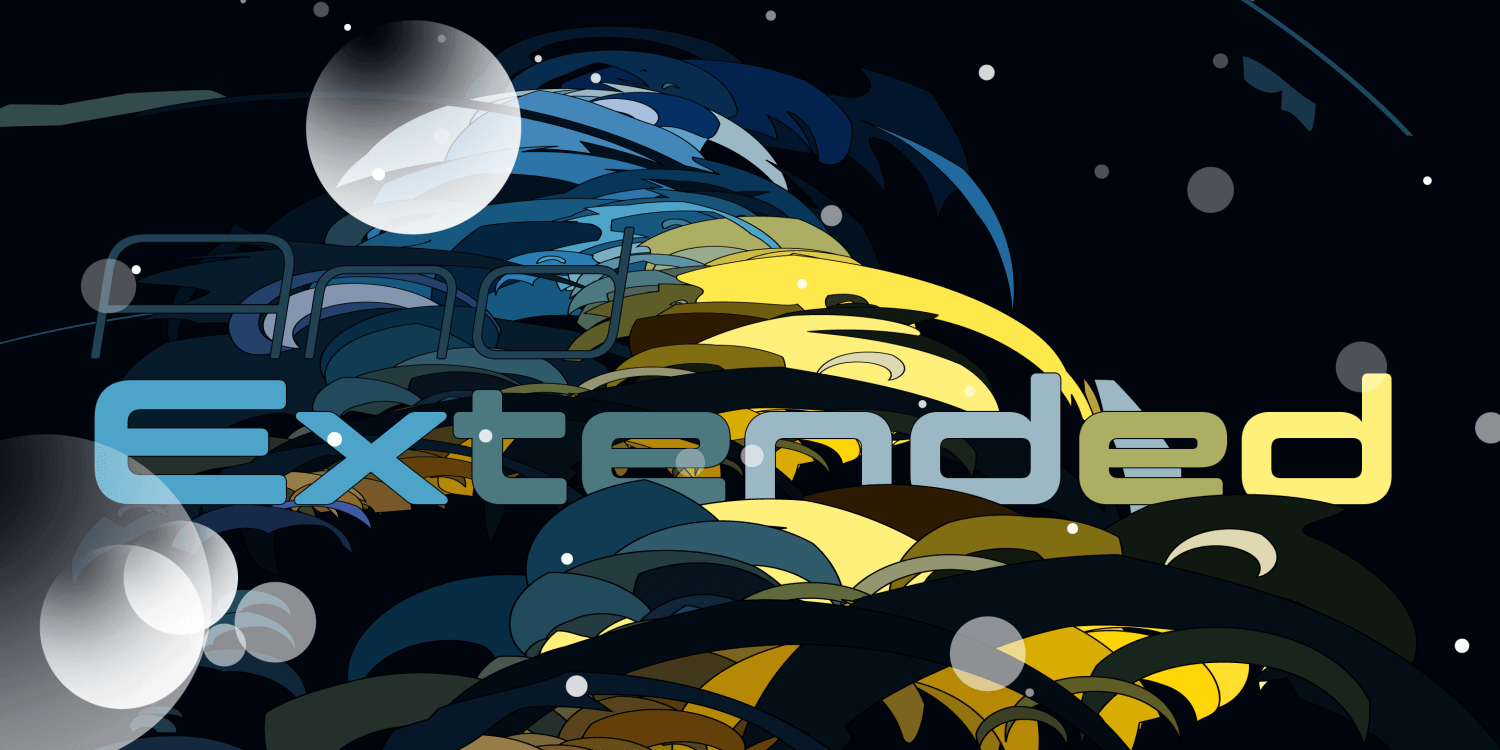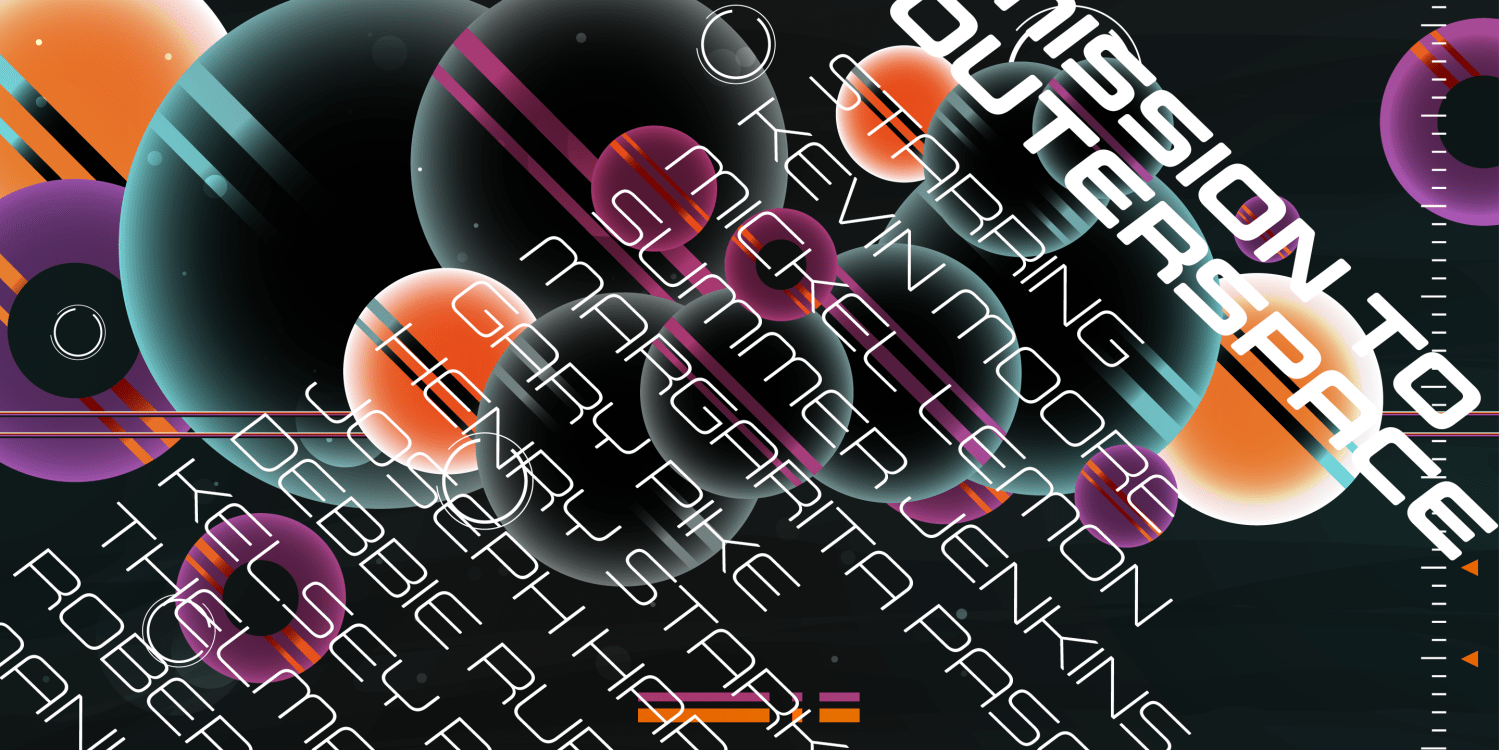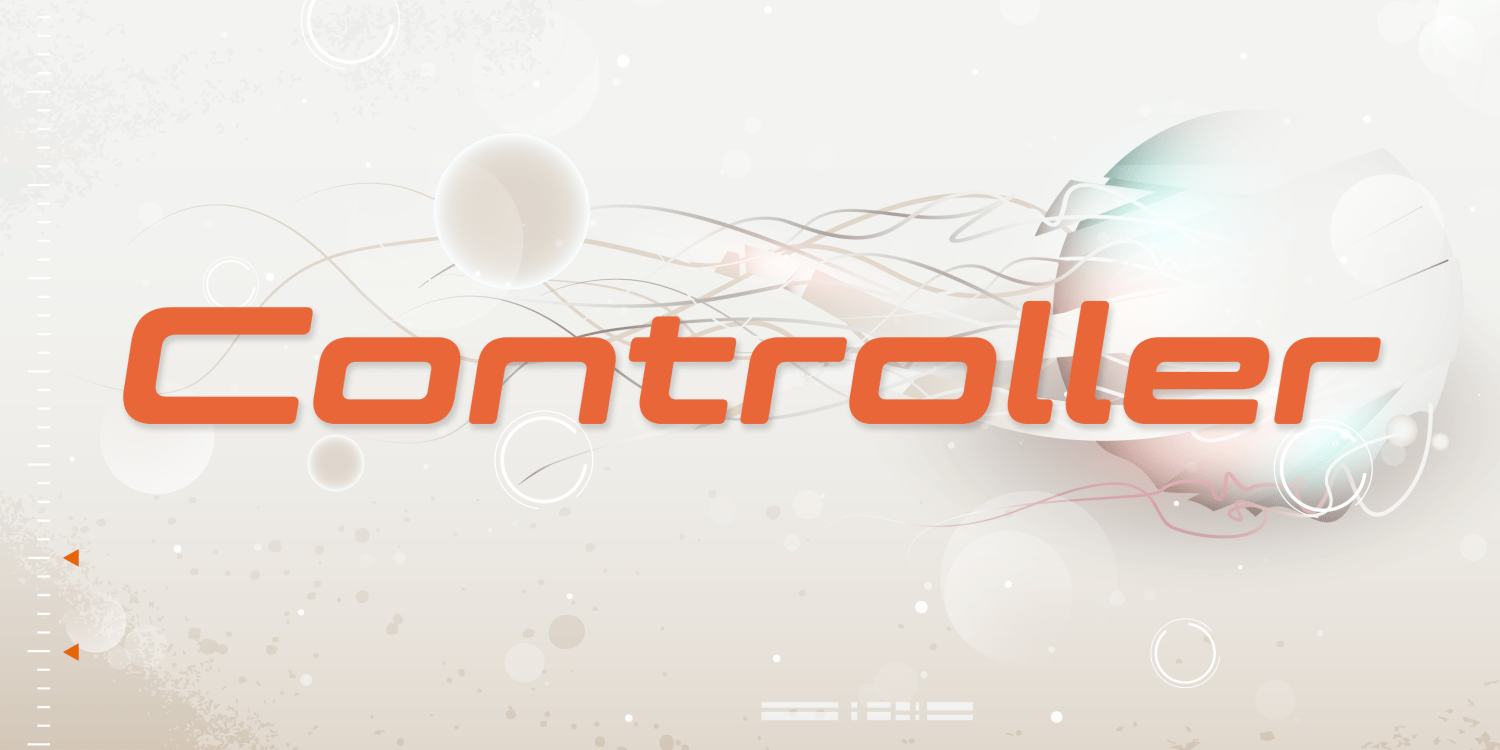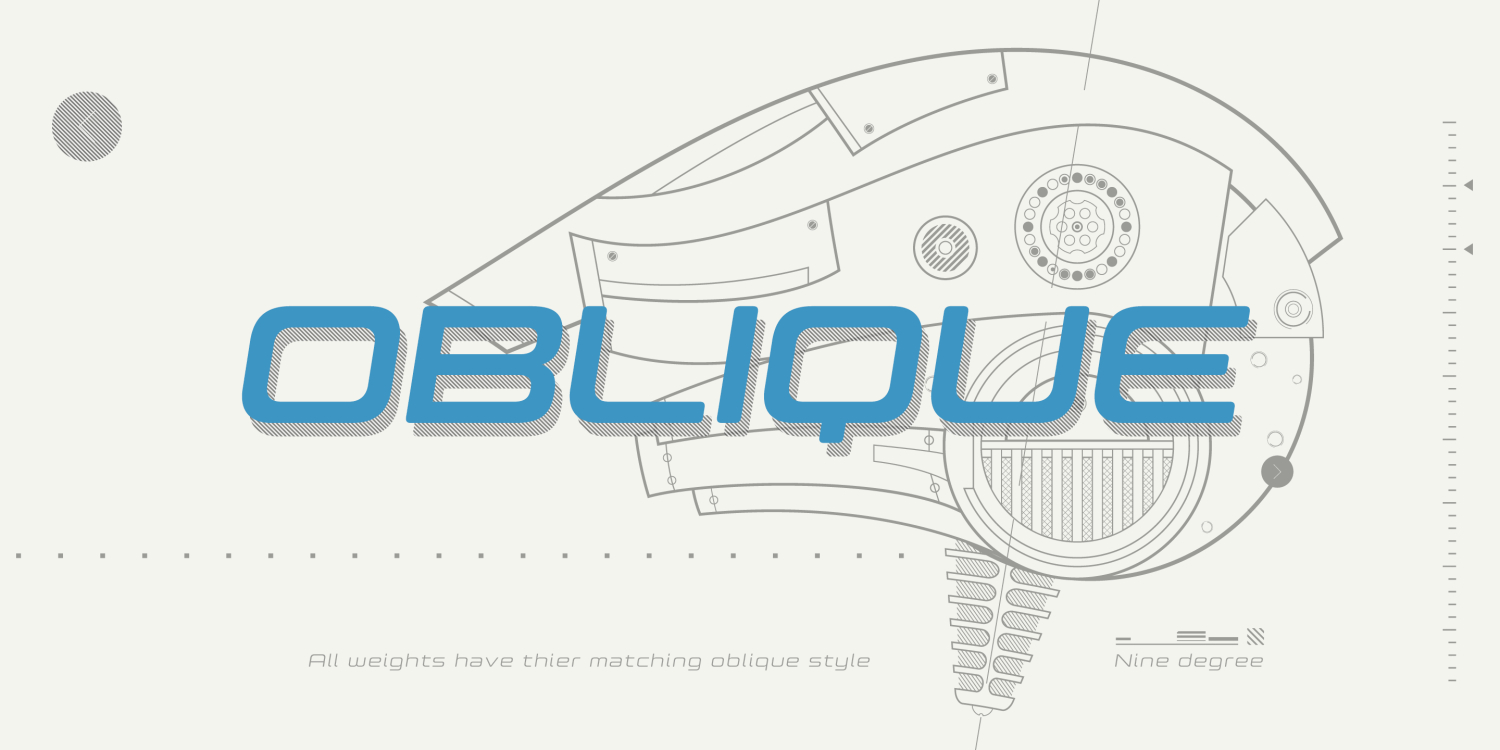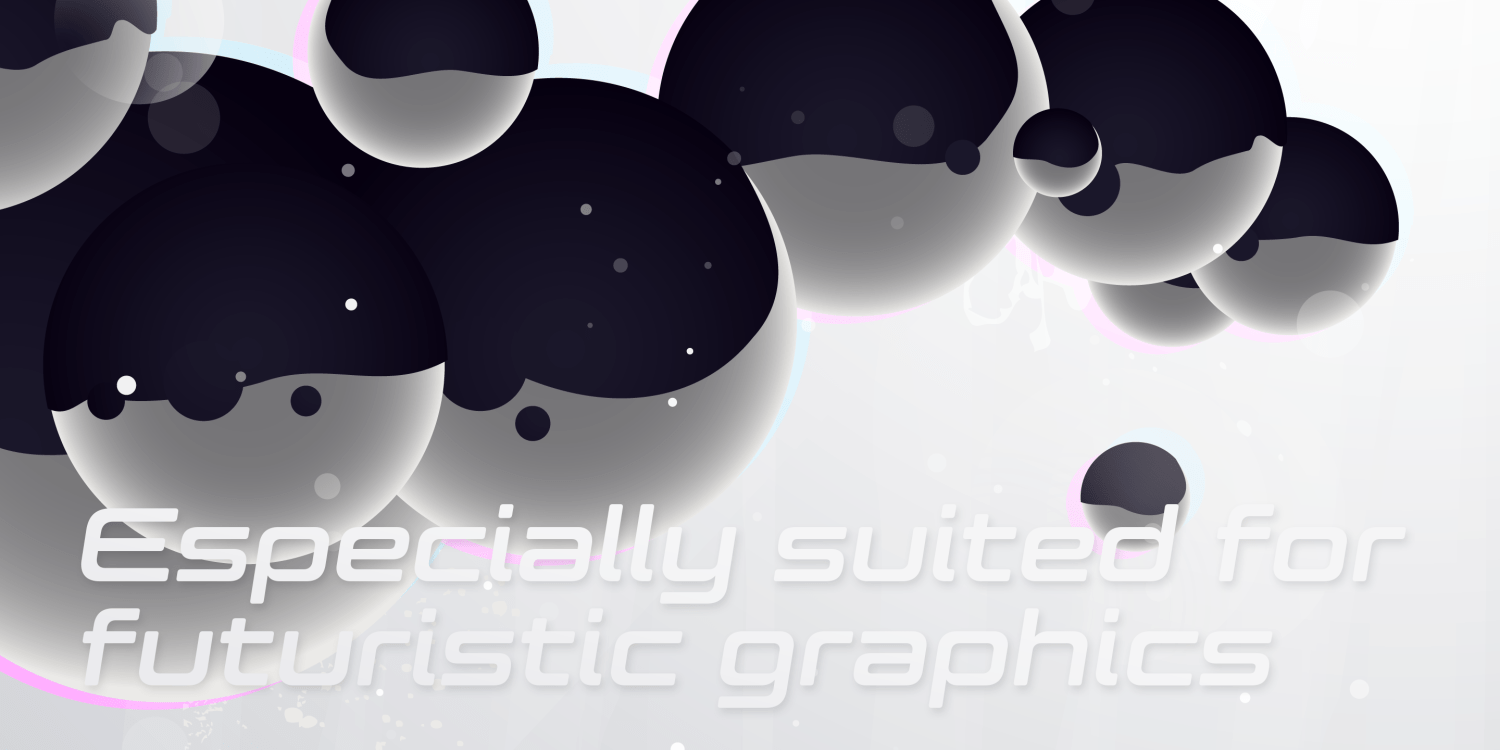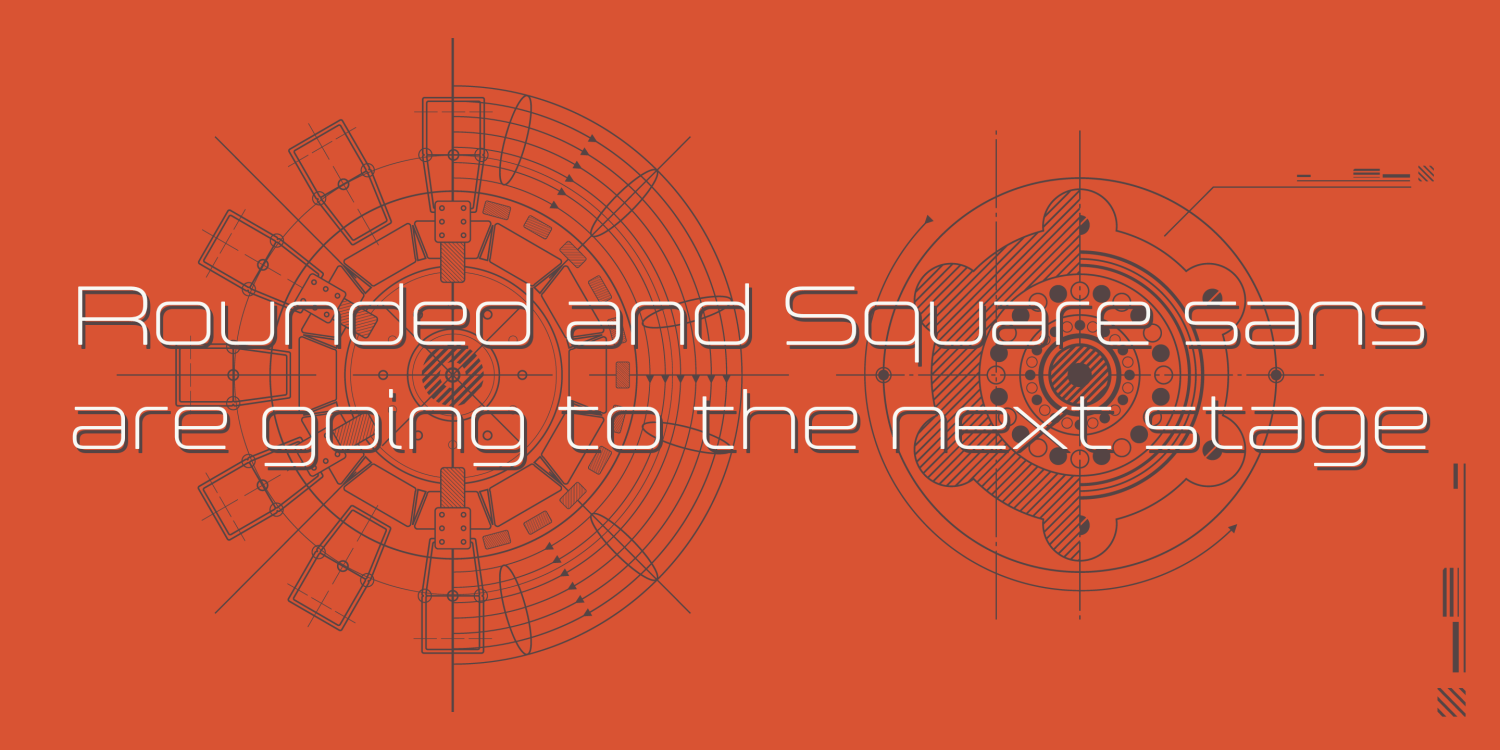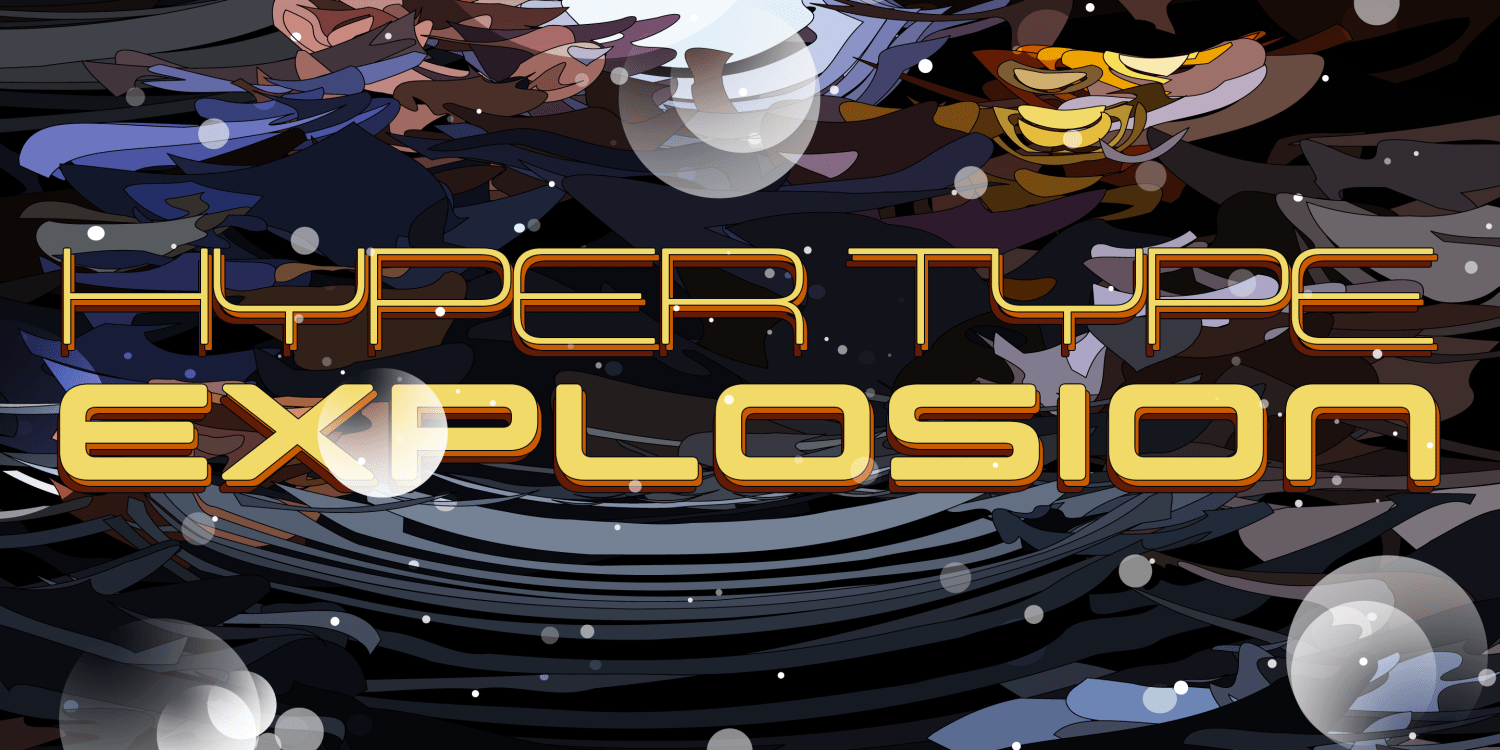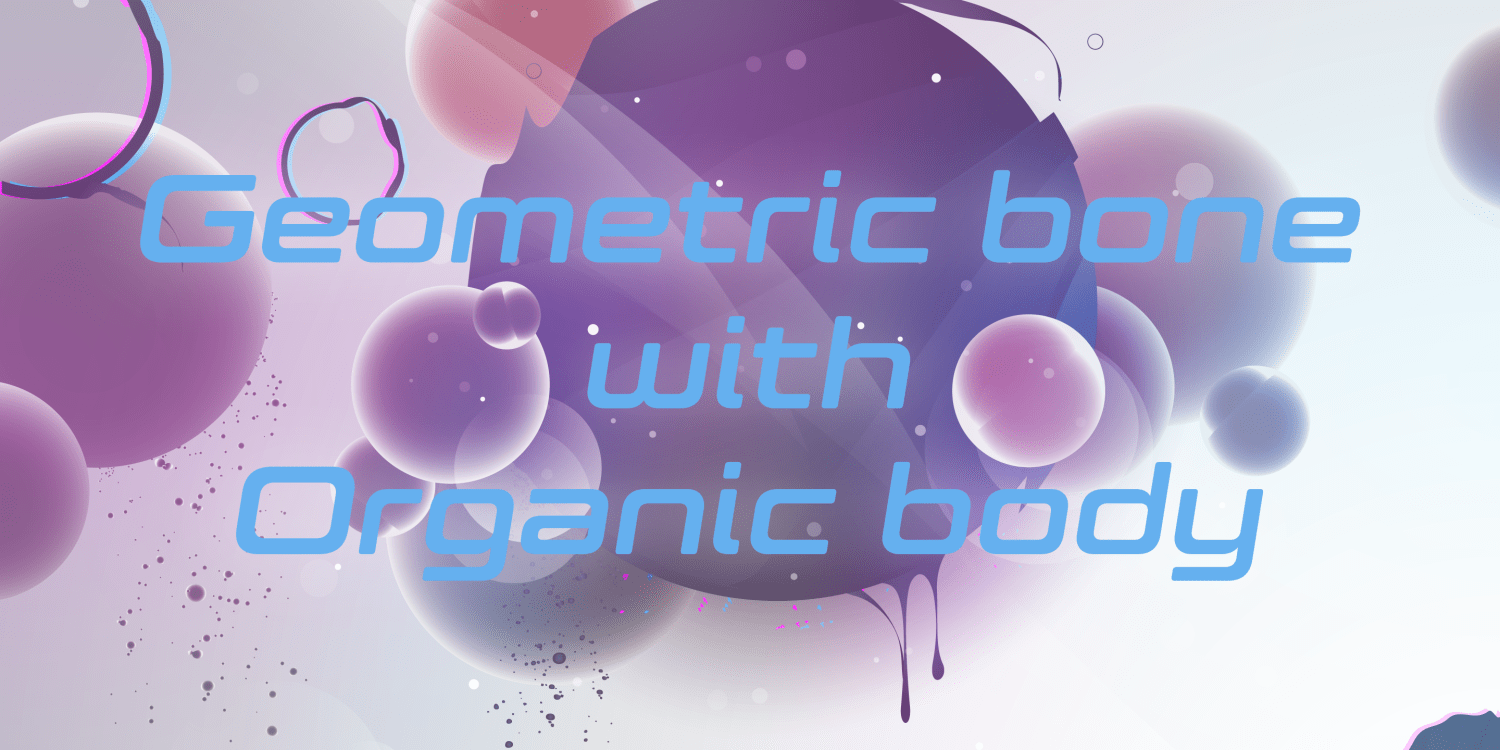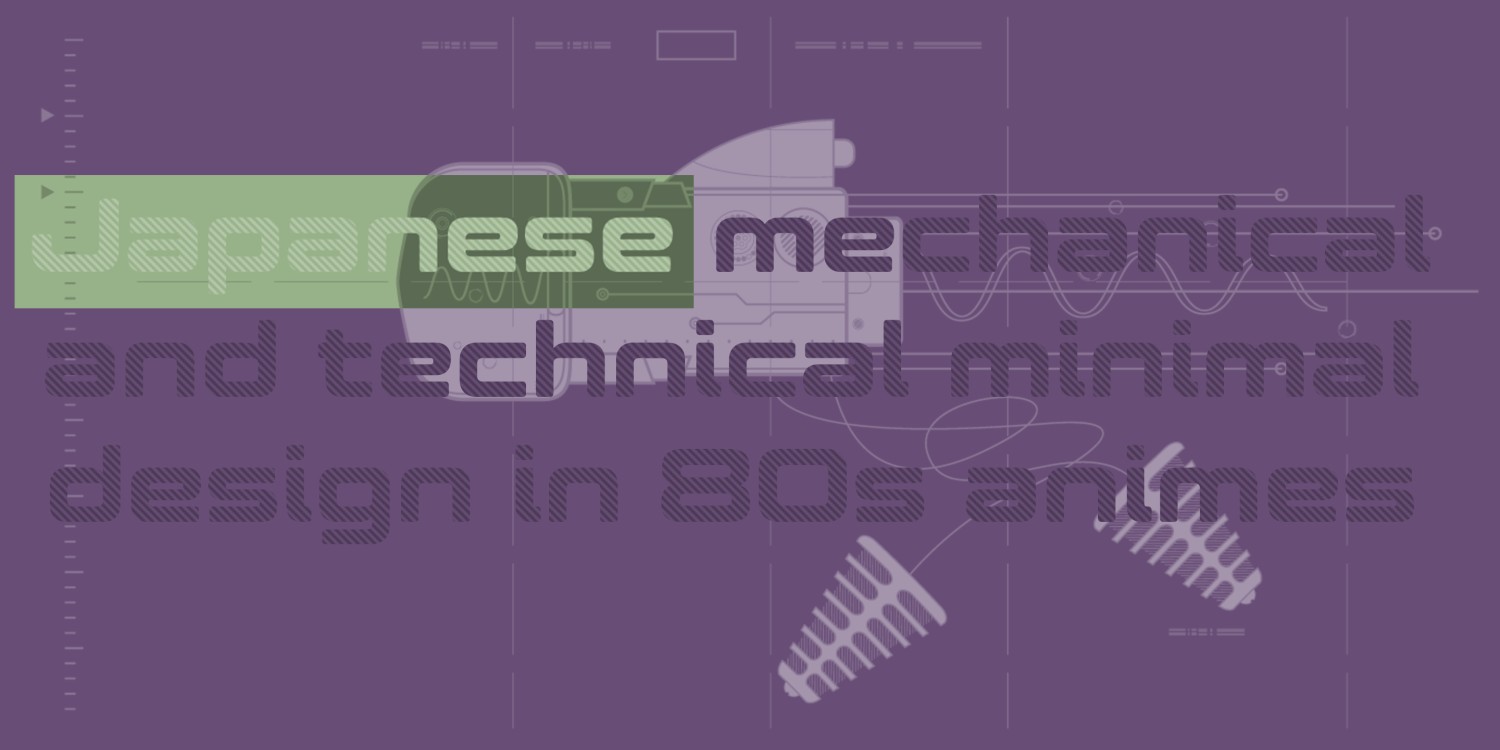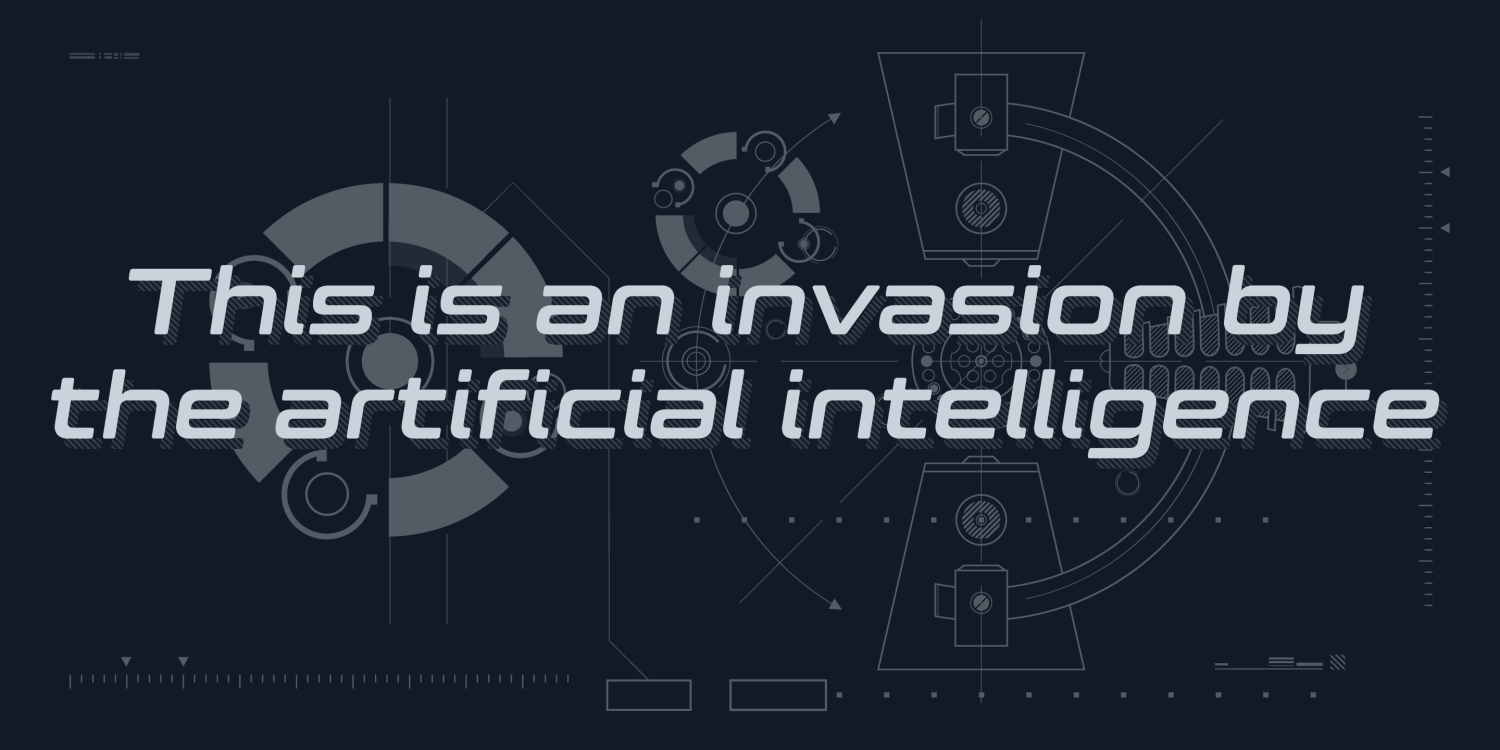
Controller Ext
Font Family by Dharma Type
Controller is a geometric rounded sans-serif typeface featuring 5 weights with matching obliques, along with extended styles for added versatility.
Originally inspired by the blend of techno and organic design trends from the late 20th-century West Coast, Controller combines precise geometric structure with subtle rounding to create a look that is both modern and warm—balancing the mechanical with the human touch.
An alternate uppercase “N” is available via the OpenType stylistic feature, allowing for greater typographic customization.
With its clean, approachable forms, Controller is a versatile and practical font family suitable for a wide range of creative applications—from branding and UI to editorial and motion graphics.